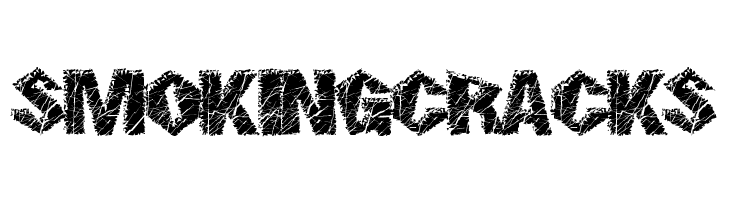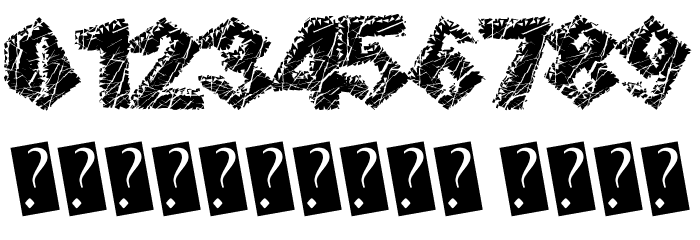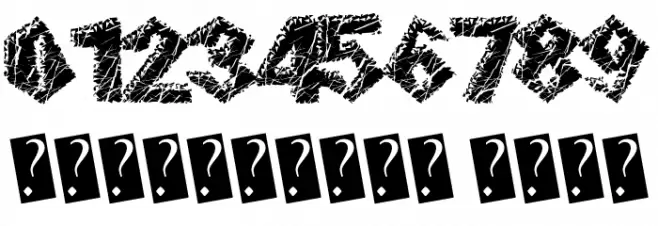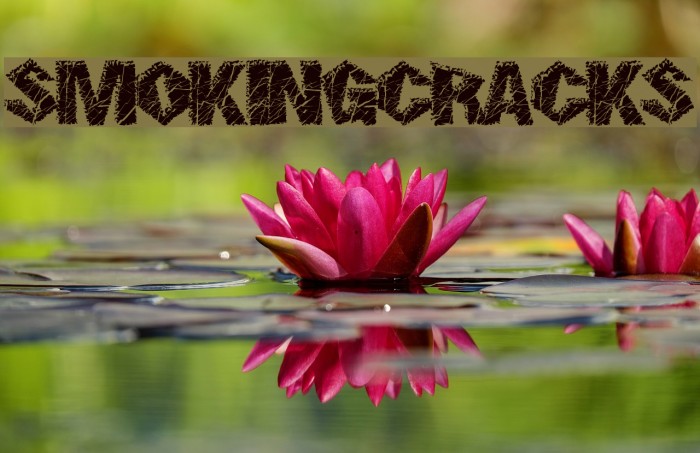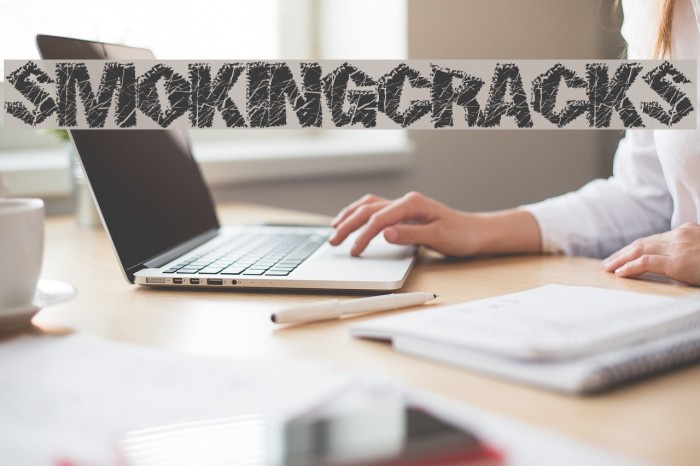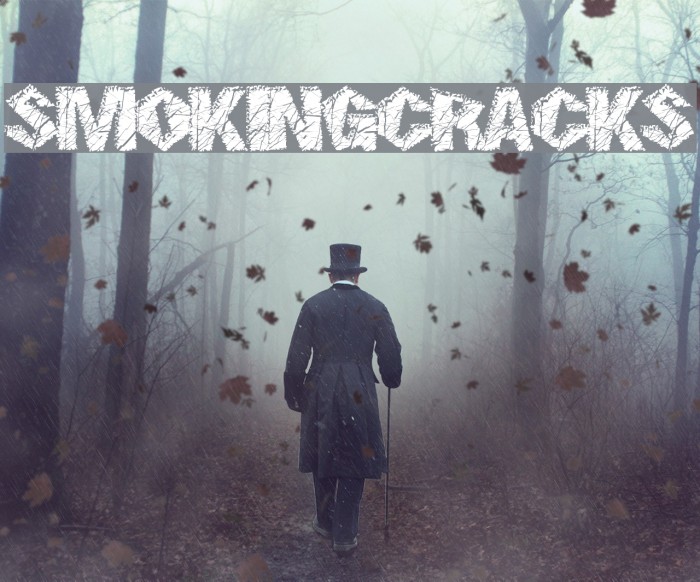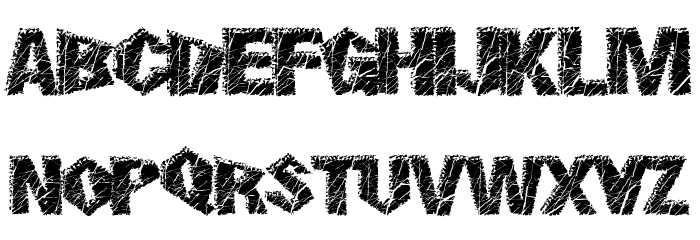
SmokingCracks Font
SmokingCracks Description
This font features a rugged, distressed appearance with a cracked texture that gives it a unique, edgy look. The characters are bold and impactful, making them stand out with their irregular, jagged edges. The uppercase and lowercase letters maintain a consistent style, while the numbers and special characters follow the same cracked pattern. This font's design is reminiscent of urban graffiti or worn-out surfaces, adding a sense of rawness and authenticity. Its distinctive style makes it suitable for projects that require a bold statement or an artistic touch.
A bold, cracked texture font with an edgy, distressed style from Distorted Eroded fonts.
- Proposed Projects: Ideal for album covers, streetwear branding, posters, and urban-themed designs.
- Overall Style: Urban, Edgy, Artistic